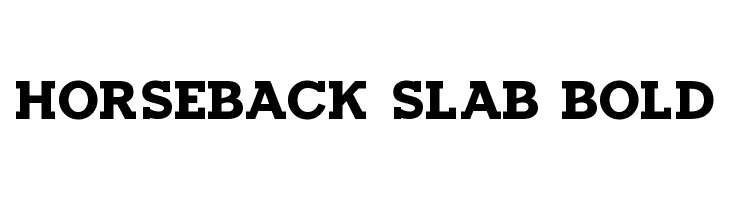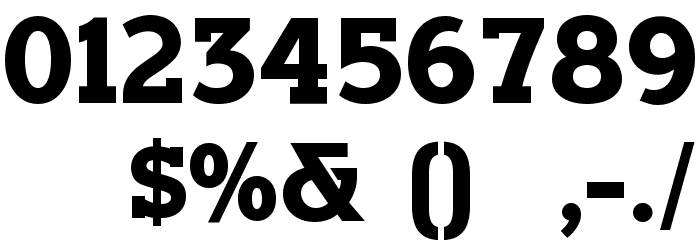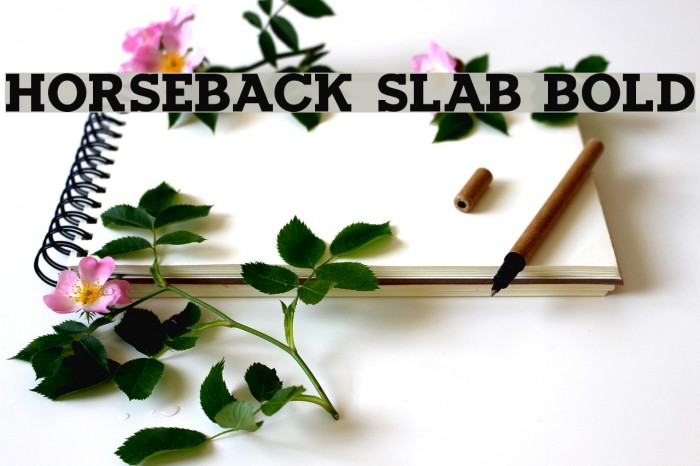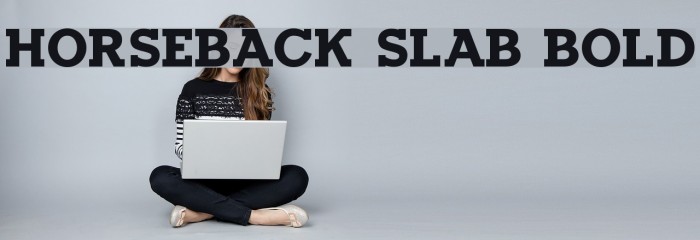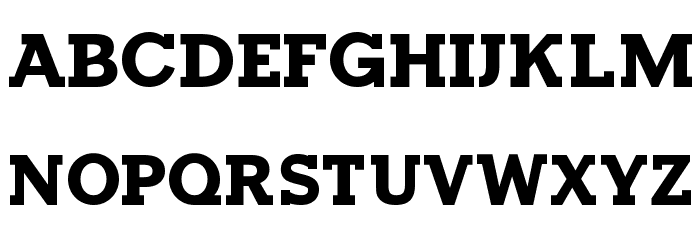
Horseback Slab Bold Font
This font features a bold and robust slab serif style, characterized by thick, block-like serifs that give it a strong and commanding presence. The uppercase and lowercase letters are well-proportioned, with a consistent stroke width that enhances readability. The numerals are clear and distinct, maintaining the bold aesthetic of the typeface. Special characters are designed with the same attention to detail, ensuring uniformity across all glyphs. This font's boldness makes it suitable for making a statement, while its slab serif design adds a touch of classic elegance.
A bold, robust slab serif font with strong, block-like serifs.
• Proposed Projects: Ideal for headlines, posters, branding materials, and any project requiring a strong, impactful typeface.